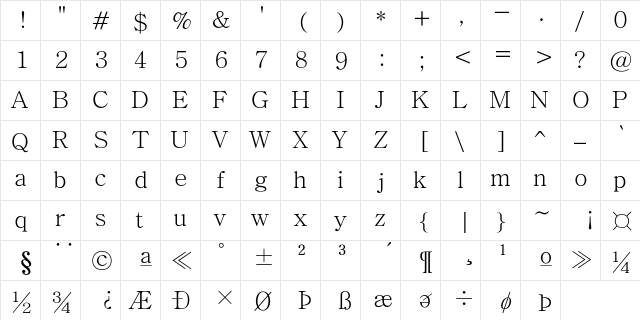
Adobe Myungjo Std Acro M
Design Context for Adobe Myungjo Std Acro Typeface
Adobe Myungjo Std Acro takes a measured approach to typography — its balanced proportions and neutral character make it a reliable workhorse for both digital and print work.